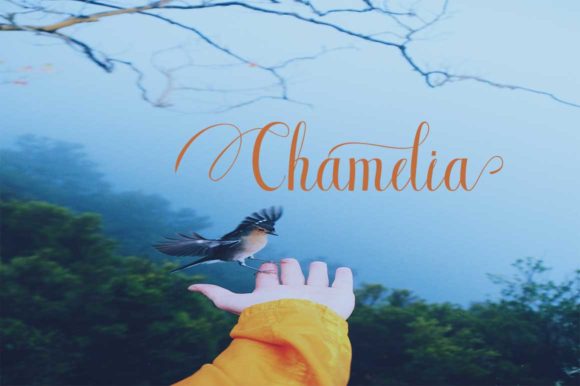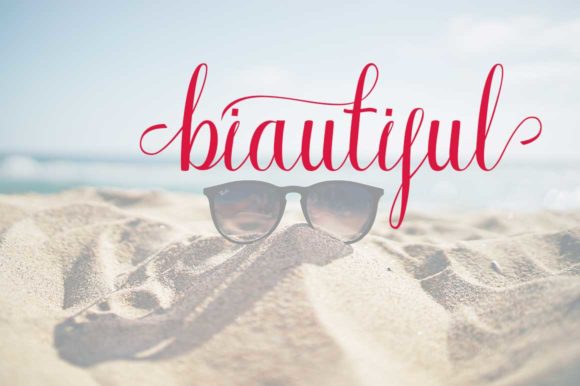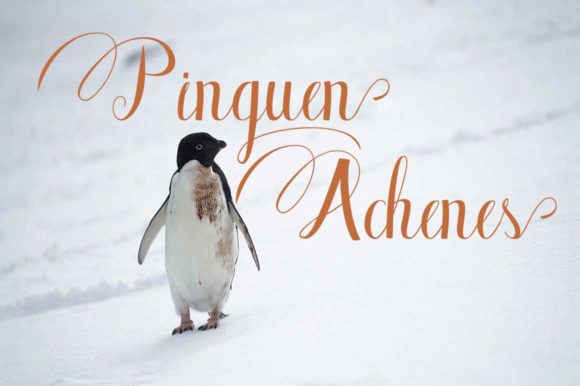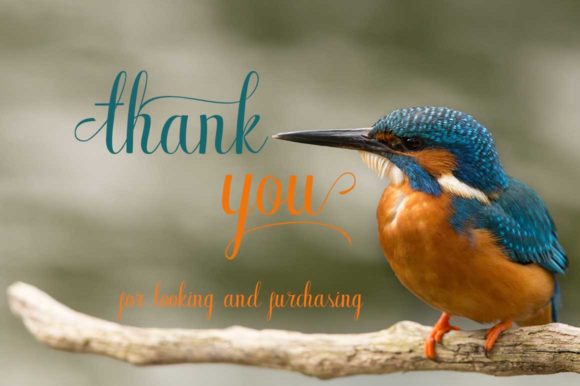
Discover the Beauty of Bluebird Font: A Delicate and Stunning Script with Unique Swashes
Are you a designer or crafter looking for a font that can add a touch of romance and elegance to your projects? Look no further than the Bluebird Font. This delicate and stunning script font is sure to capture your heart with its unique swashes and romantic feel.
What is Bluebird Font?
Bluebird Font is a beautiful script font that is perfect for a variety of design projects, from wedding invitations and stationery to branding and packaging. Its delicate and flowing lines give it a romantic and feminine feel that is sure to impress.
One of the standout features of Bluebird Font is its unique swashes. These decorative flourishes add a touch of elegance and sophistication to any design, making it perfect for projects that require a high level of detail and refinement.
Features of Bluebird Font
So, what makes Bluebird Font so special? Here are just a few of its key features:
- Delicate and flowing lines: Bluebird Font has a beautiful, cursive script that is perfect for creating elegant and sophisticated designs.
- Unique swashes: The font’s swashes are carefully crafted to add a touch of romance and whimsy to any design.
- Romantic feel: Bluebird Font has a distinctly romantic feel that makes it perfect for wedding invitations, anniversary cards, and other special occasions.
- High-quality design: The font is carefully crafted to ensure that it looks great in any design, from print to digital.
Uses for Bluebird Font
So, what can you use Bluebird Font for? The possibilities are endless! Here are a few ideas to get you started:
- Wedding invitations and stationery: Bluebird Font is perfect for creating beautiful and elegant wedding invitations, save-the-dates, and other stationery.
- Branding and packaging: The font’s unique swashes and romantic feel make it a great choice for branding and packaging projects that require a touch of elegance and sophistication.
- Digital designs: Bluebird Font looks great in digital designs, from social media graphics to website headers.
- Crafting and DIY projects: If you’re a crafter or DIY enthusiast, Bluebird Font is a great choice for projects like card making, scrapbooking, and more.
Tips for Using Bluebird Font
Here are a few tips for getting the most out of Bluebird Font:
- Use it sparingly: Because Bluebird Font is so elegant and sophisticated, it’s best to use it sparingly. Use it for headings or titles, and pair it with a simpler font for body text.
- Experiment with swashes: The swashes in Bluebird Font are one of its standout features. Experiment with different swashes to find the one that works best for your design.
- Pair it with other fonts: Bluebird Font looks great when paired with other fonts. Try pairing it with a bold font for a striking contrast.
In conclusion, Bluebird Font is a beautiful and elegant script font that is perfect for designers and crafters looking to add a touch of romance and sophistication to their projects. With its unique swashes and romantic feel, it’s sure to capture your heart. Whether you’re working on a wedding invitation, branding project, or DIY craft, Bluebird Font is a great choice.